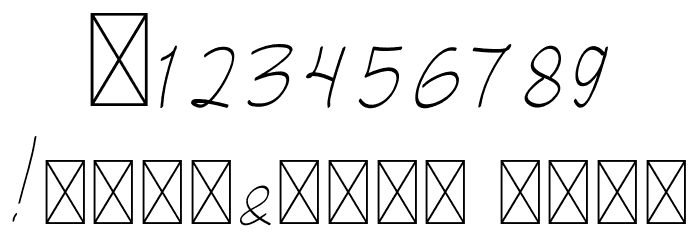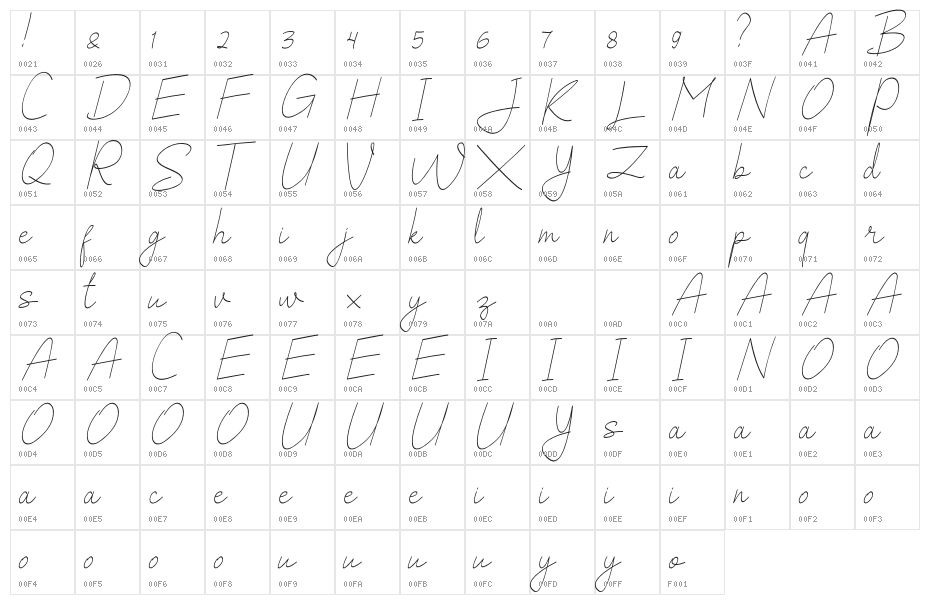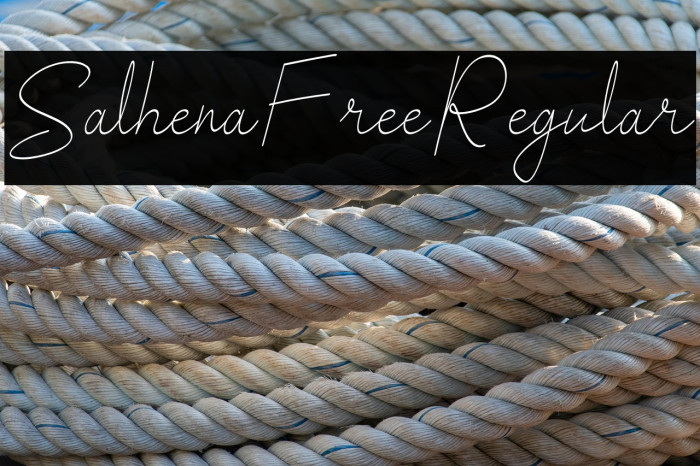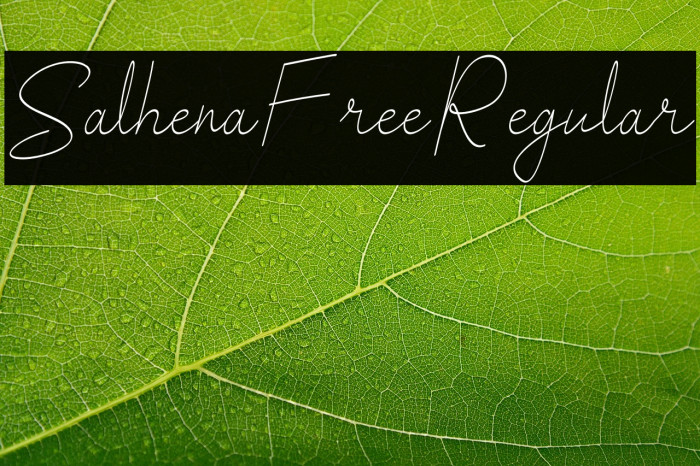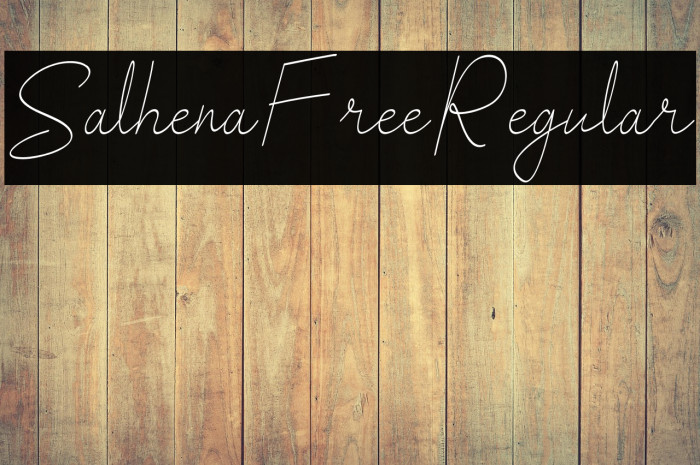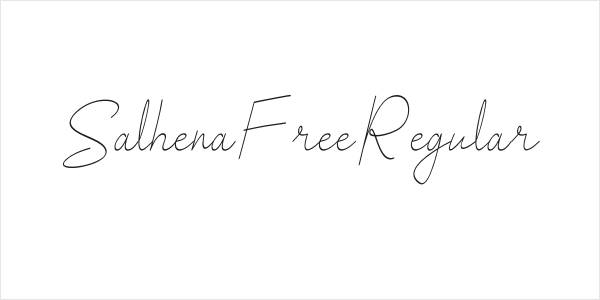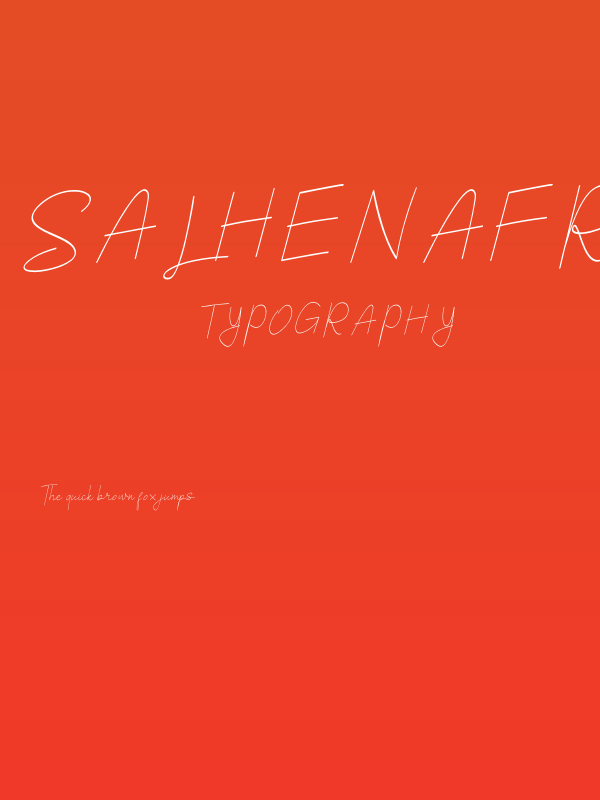
SalhenaFreeRegular Font
SalhenaFreeRegular Description
This font features a delicate and flowing script style, characterized by its elegant and fluid strokes. The uppercase letters are slightly slanted with a consistent thinness, giving them a graceful appearance. The lowercase letters are more cursive, with some letters connecting seamlessly to others, enhancing the handwritten feel. The numerals maintain the same thin stroke, ensuring uniformity across the font. Special characters are included, matching the overall aesthetic with their slender and stylish design. This font exudes a sense of sophistication and charm, making it ideal for projects that require a personal touch.
| Use Case | Logos, Invitations, Personal Correspondence |
| Proposed Projects | Ideal for wedding invitations, personal letters, greeting cards, and branding materials that require a personal and elegant touch. |